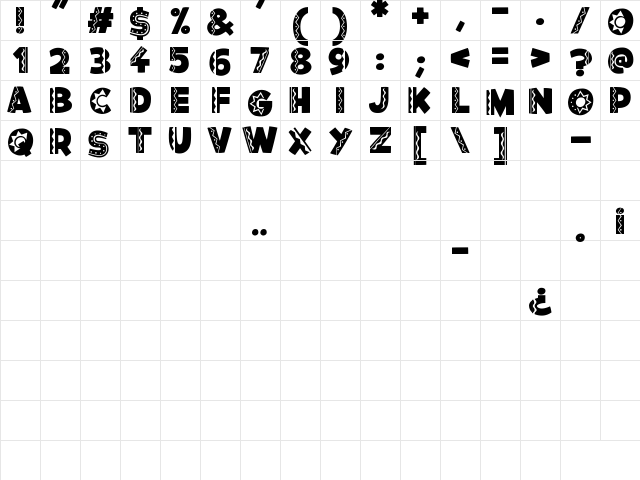
Tacos de Tijuana Regular
| Designer | IMAGEX |
Design Context for Tacos de Tijuana Typeface
Tacos de Tijuana is a composed and adaptable typeface that performs quietly and consistently across a wide range of design contexts.